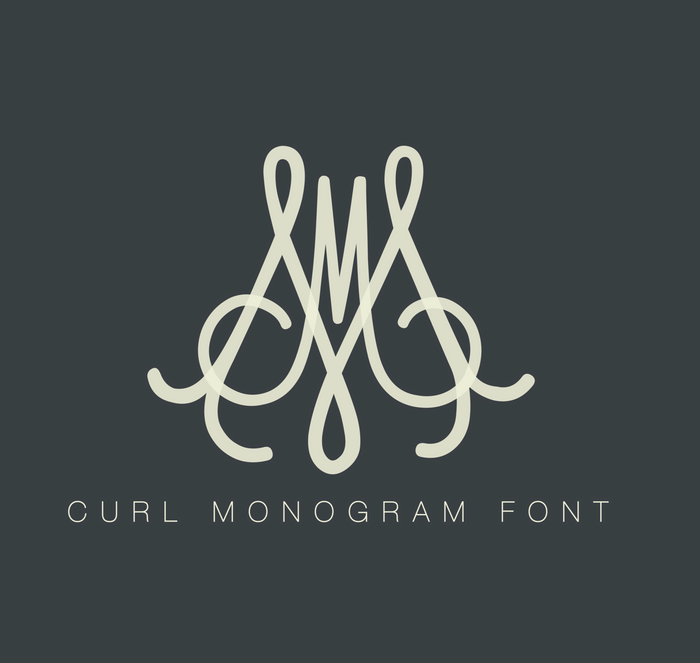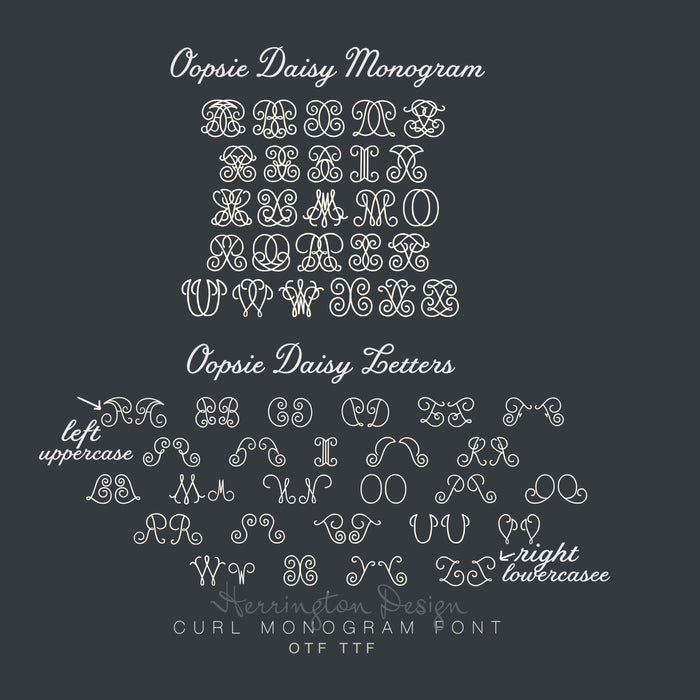
Baroque Monogram Oopsie Daisy Desktop & Web FONT
The Baroque Oopsie Daisy Monogram Typeface font includes Desktop OTF, TTF, and EOT and WOFF web fonts. There are 78 letters included in this download. overlapping monogram letters, 26 left and 26 right which can be combined in different arrangements to create new monograms.